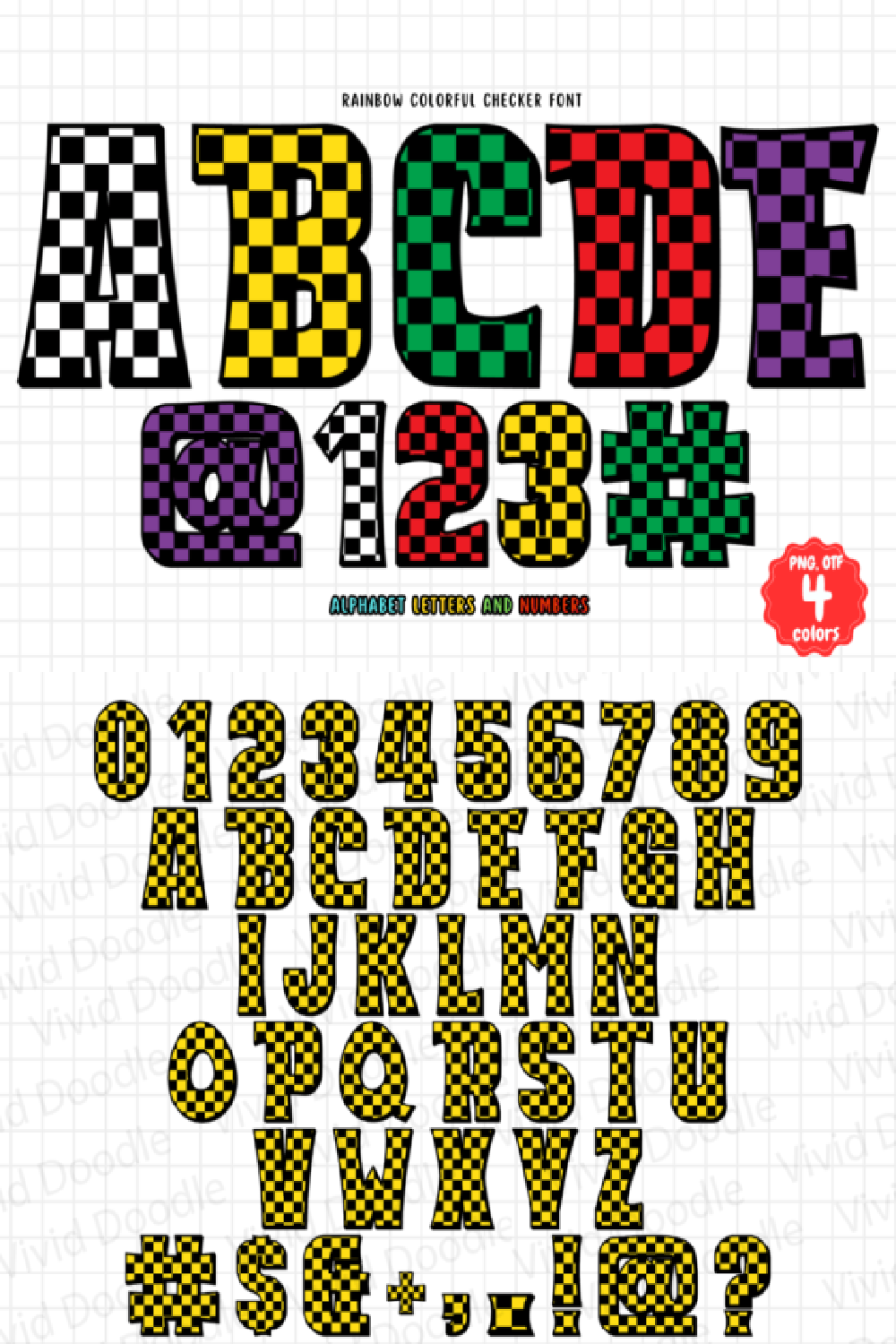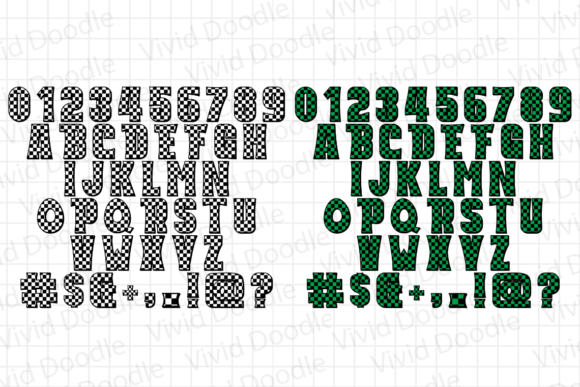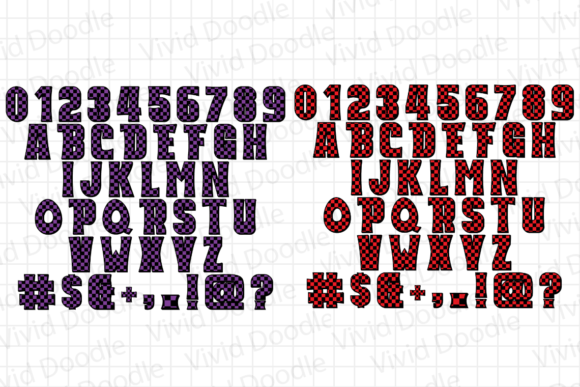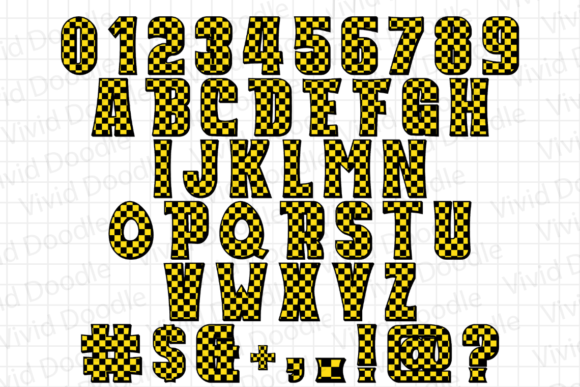
Rainbow Colorful Checker Font
About the Rainbow Colorful Checker Font
Explore the possibilities with Rainbow Colorful Checker Font, a font that offers both beauty and functionality. Unleash a vibrant burst of energy with the “Rainbow Colorful Checker” font, a lively typeface that’s perfect for sport-themed projects, school activities, and creative art. This dynamic handwritten font combines a playful checkerboard pattern with a spectrum of colors, making it an excellent choice for holiday decorations, graphic design, and more.
Whether you’re designing posters for a sports event, creating engaging classroom materials, or adding a splash of color to your holiday graphics, the “Rainbow Colorful Checker” font will bring your designs to life with its bold and cheerful style. Elevate your projects with this fun and versatile font that’s sure to catch everyone’s eye!